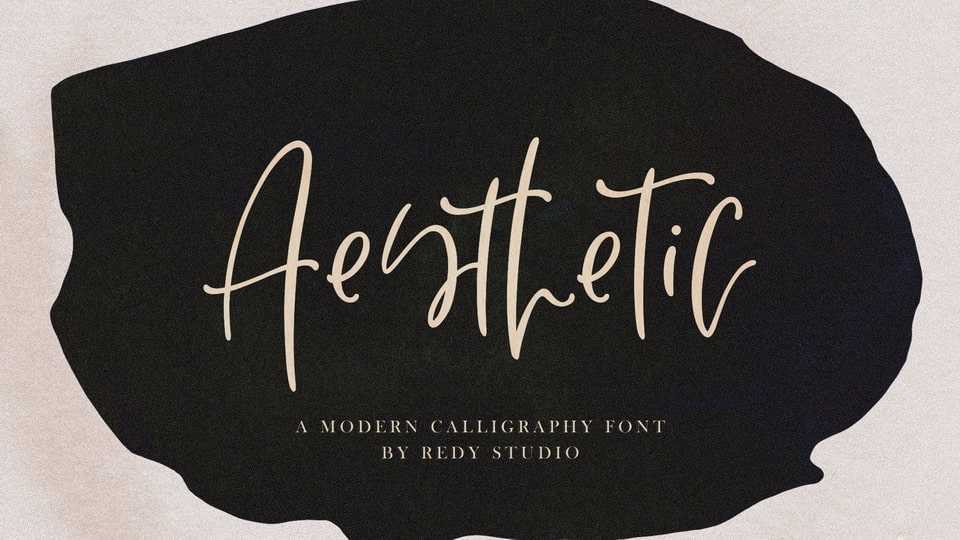
Download Aesthetic font, a modern calligraphy typeface to give your work just the unique touch you have been looking for. With Aesthetic, you can create a very natural flow and feel of a handwritten font.
Designer: Redy Studio